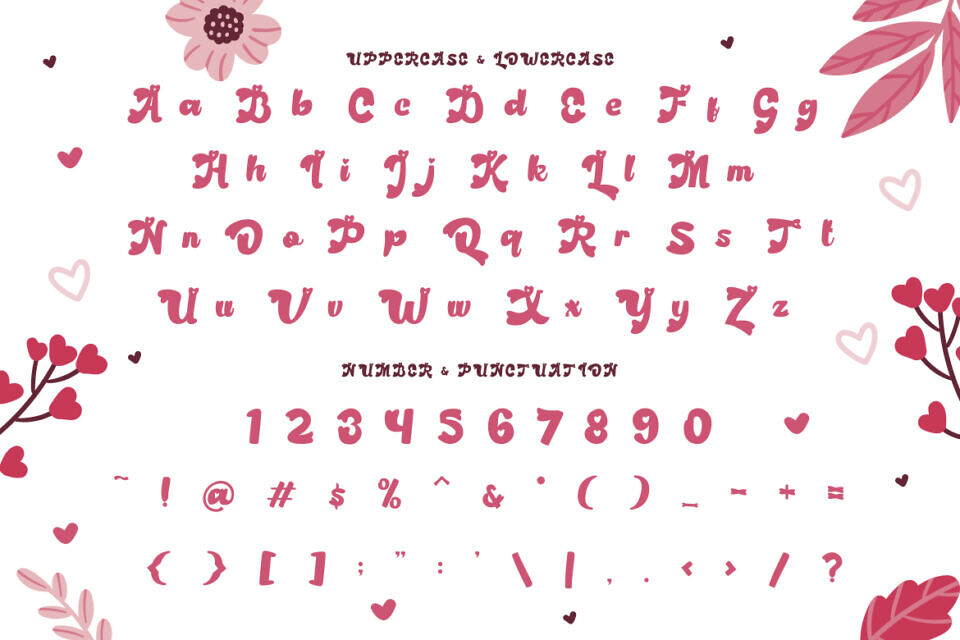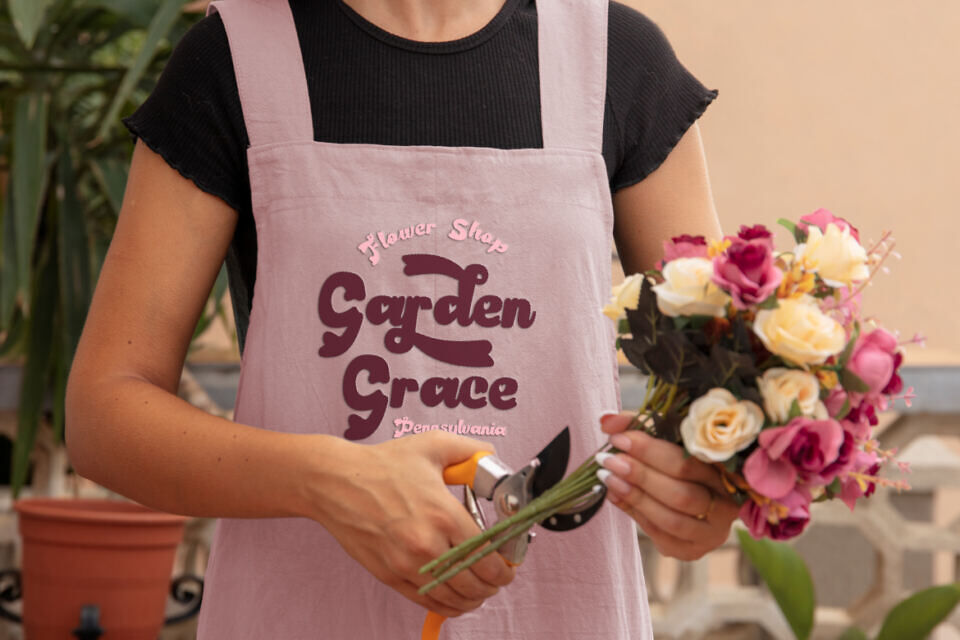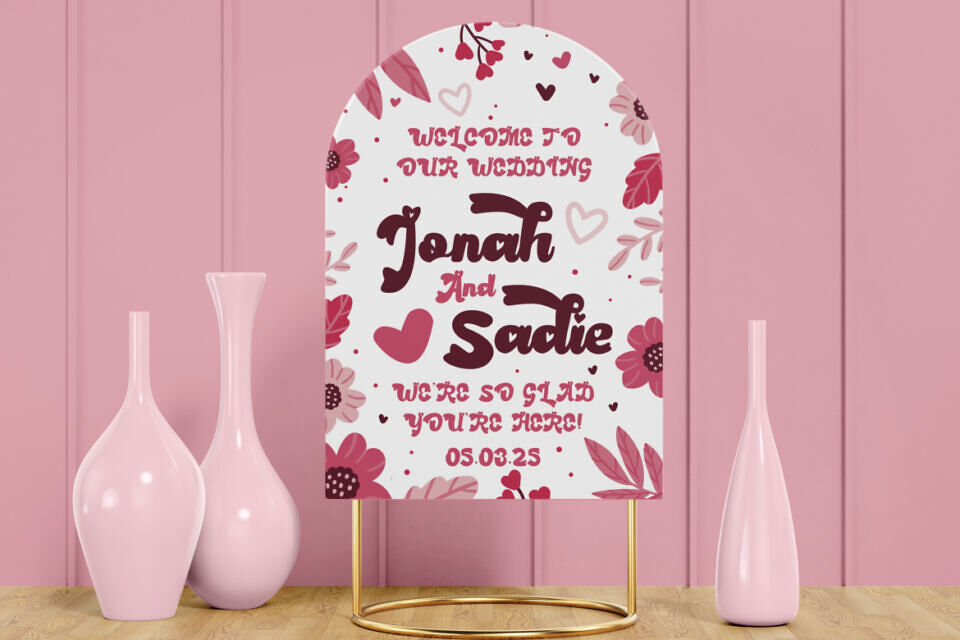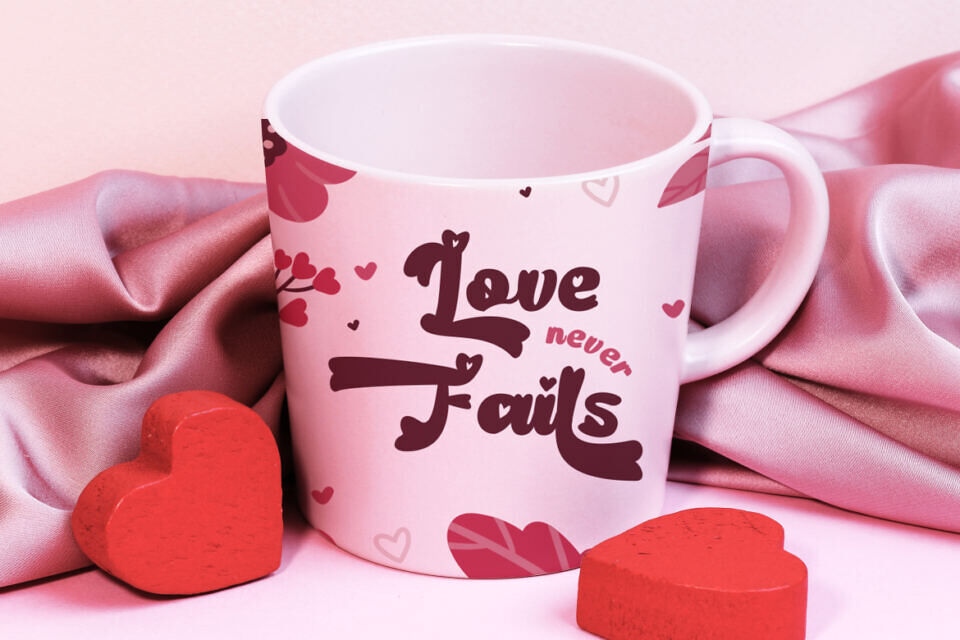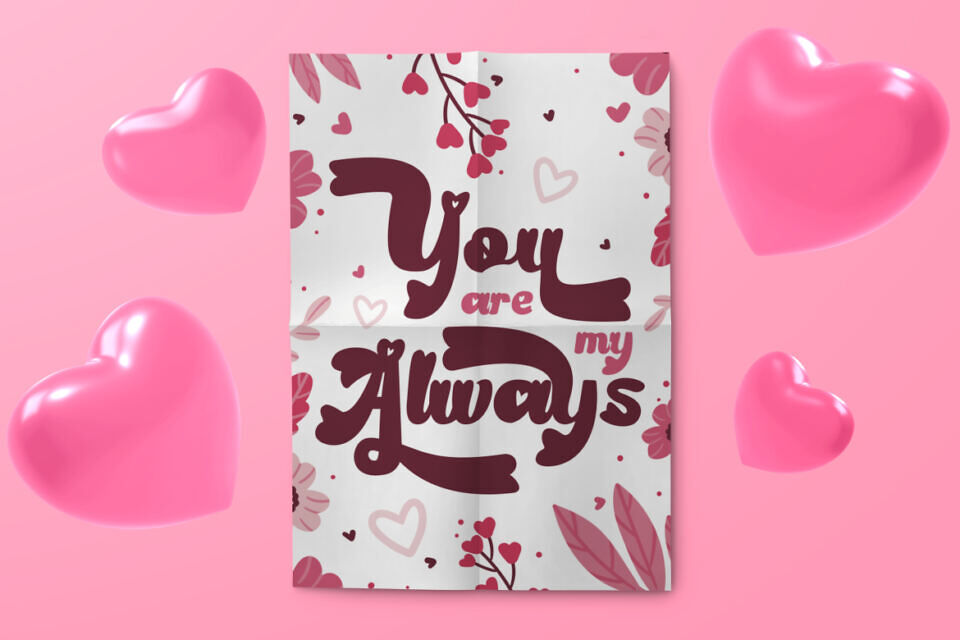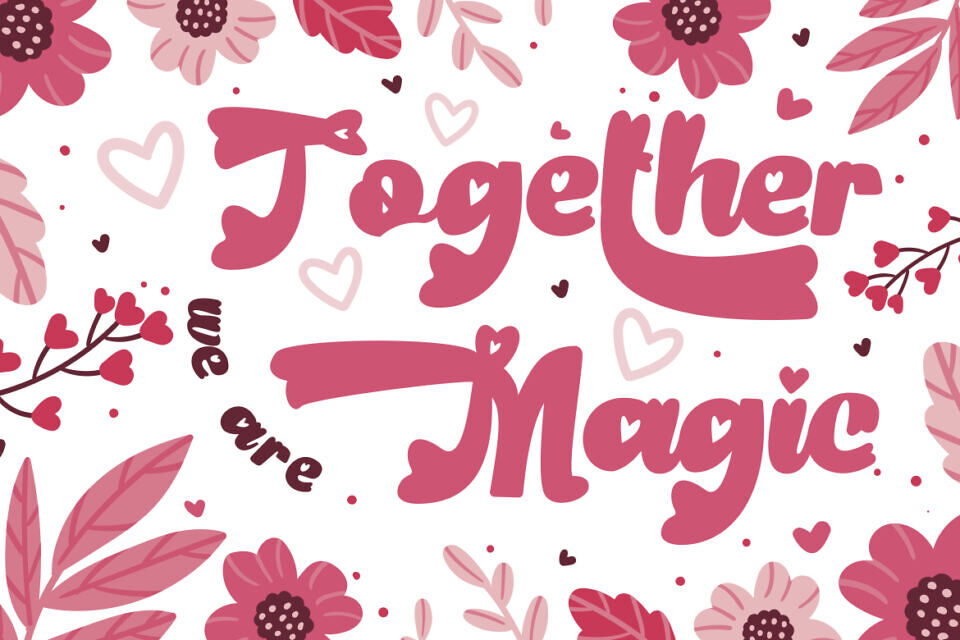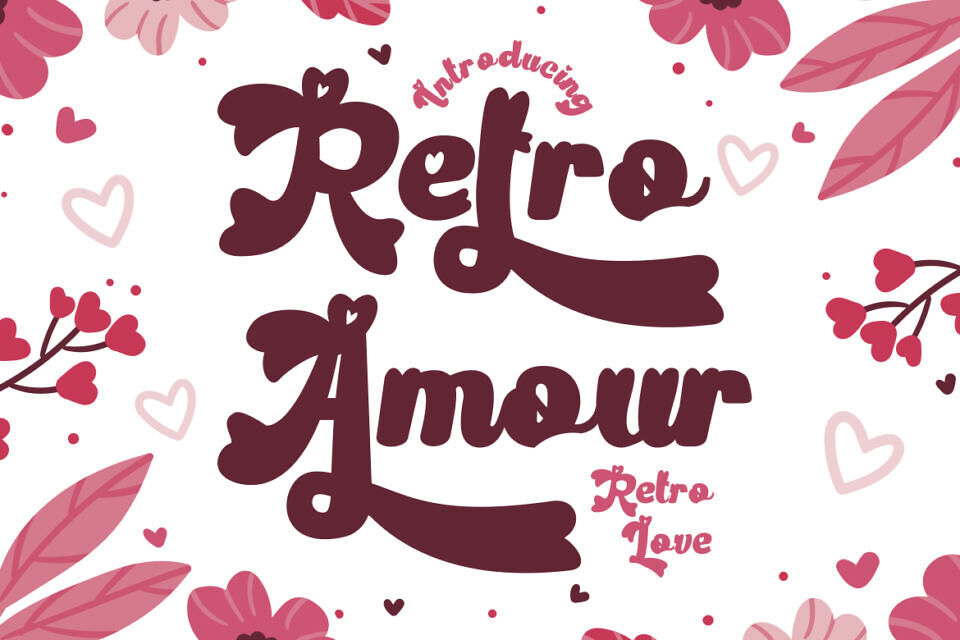
Retro Amour Font
Retro Amour is a romantic, retro-inspired display font designed to bring charm and warmth to your design projects. This typeface features thick, rounded strokes and sweeping tails that echo the nostalgia of vintage 70s aesthetics while incorporating adorable heart-shaped cutouts on terminals and letterforms.
With a hand-lettered look, each curve of Retro Amour exudes affection and playfulness. The bold weight and whimsical flourishes make it a standout choice for Valentine’s themes, wedding invitations, or any love-centric visual communication.